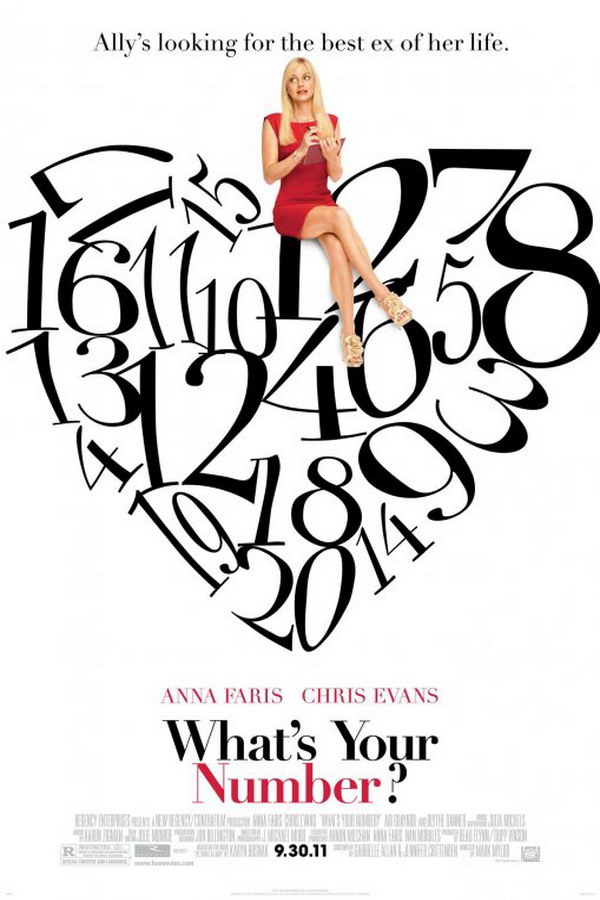
What’s Your Number Font
Fonts in UseWhat’s Your Number? is a romantic comedy movie directed by Mark Mylod and released in 2011. The film follows Ally Darling (Anna Faris) as she revisits her past relationships in a quest to find true love.
The poster's movie title is likely set in Linotype Didot Pro Bold, a serif typeface with high contrast, created by Adrian Frutiger for Linotype circa 1991. Further information regarding this typeface can be found here.